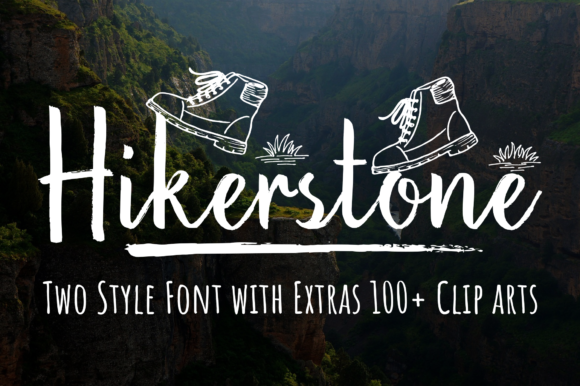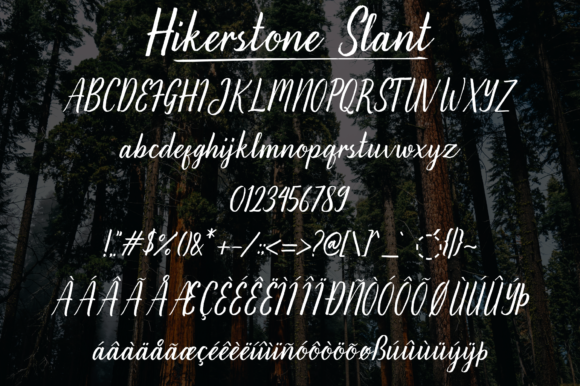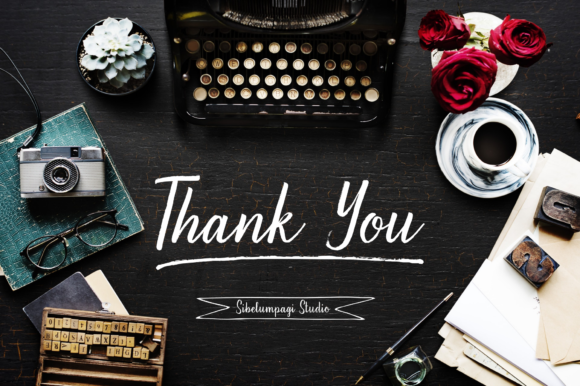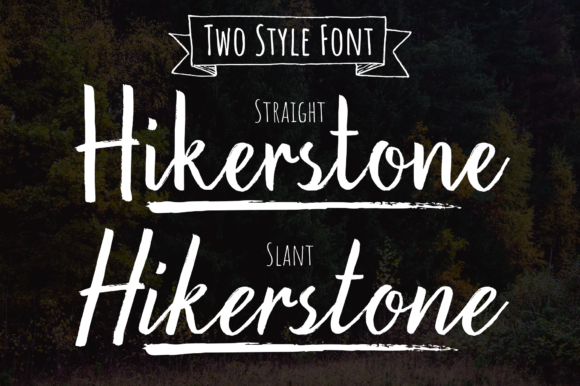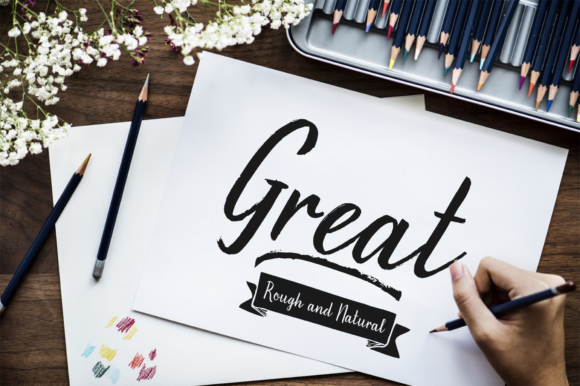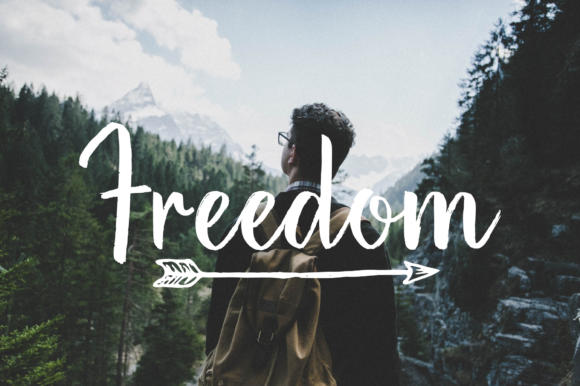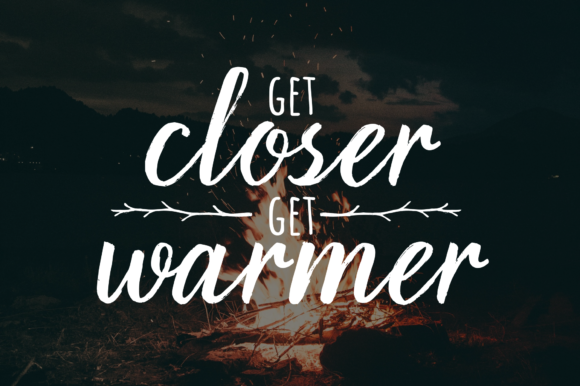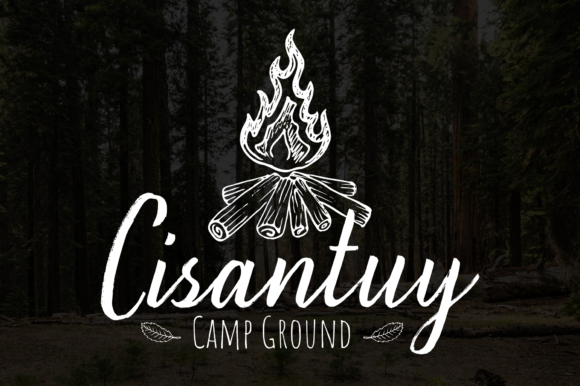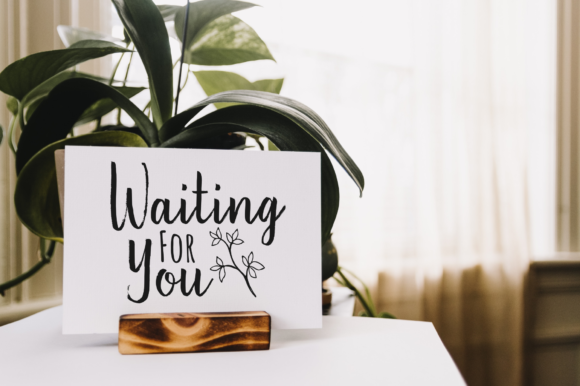
Hikerstone Family Font
About Hikerstone Family Font
The Hikerstone font family stands out as a stalwart in the realm of typefaces, offering a strong and natural aesthetic that is particularly well-suited for a variety of creative applications. This versatile font is not only visually appealing but also highly functional, making it an excellent choice for logos, crafts, blogs, and striking headlines.
With its rough and natural look, the Hikerstone font family exudes a sense of authenticity and character. The three variations—slant, straight, and swash—provide designers with a range of options to play with, allowing them to tailor the font to the specific needs of their projects. Whether you’re aiming for a more traditional and structured appearance or a dynamic and swirled style, Hikerstone has you covered.
One of the standout features of the Hikerstone font family is its adaptability. Its rough and natural look makes it an ideal choice for projects that require a touch of ruggedness or authenticity. The font’s versatility extends to its ability to serve as a captivating headline font, drawing attention and making a bold statement. It seamlessly integrates into various design contexts, offering a cohesive and engaging visual experience.
As a bonus, the Hikerstone font family includes a collection of stunning cliparts, adding an extra layer of creativity to your projects. These cliparts can be seamlessly incorporated into your designs, providing additional visual elements that complement the font’s aesthetic. The combination of the Hikerstone font family and the bonus cliparts opens up a world of creative possibilities for designers across different industries.
In conclusion, the Hikerstone font family is more than just a set of typefaces—it’s a design tool that empowers creators to infuse their projects with a rough, natural, and striking visual appeal. Whether you’re crafting a logo, working on a blog, or creating eye-catching crafts, Hikerstone is a reliable and impactful choice that adds a touch of authenticity and creativity to your designs.